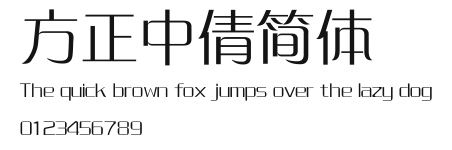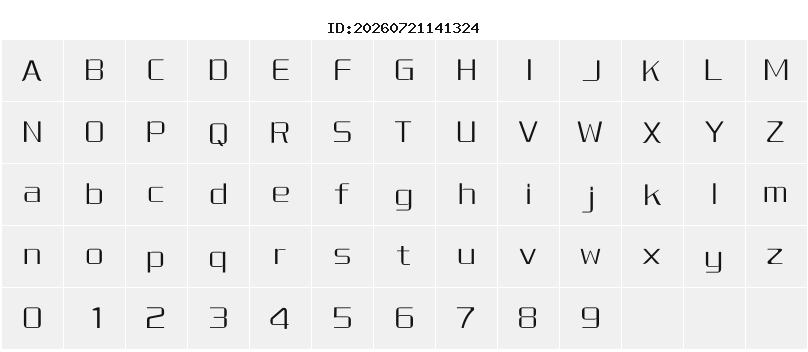
方正中倩简体 Preview
• Font Name: 方正中倩简体
• Font ID: Founder:方正中倩简体 Regular
• Full Font Name: 方正中倩简体
About 方正中倩简体.ttf
方正中倩简体.ttf is a modern, elegant sans-serif font designed for ultimate readability and visual harmony. Perfect for branding, headlines, web design, and print materials.